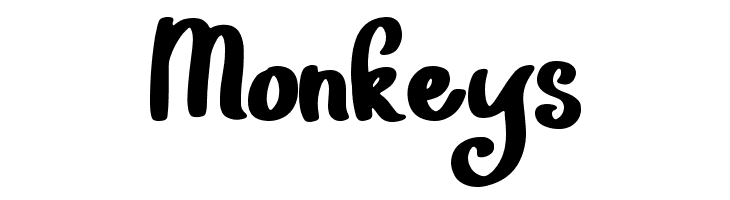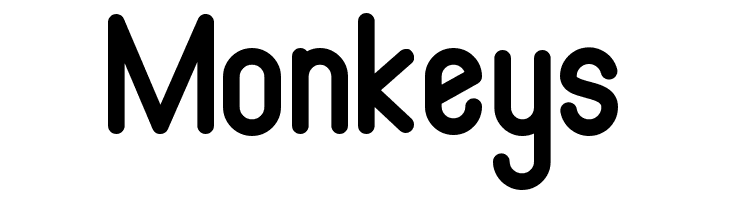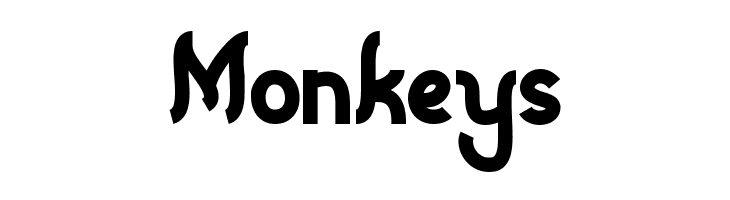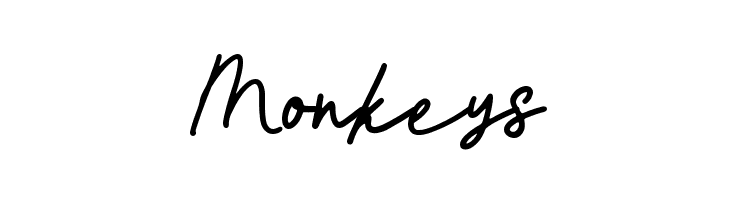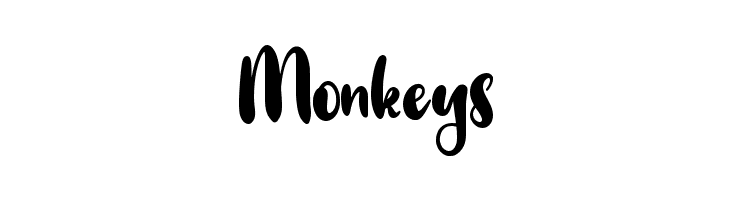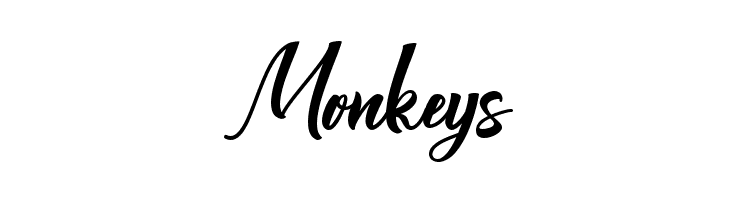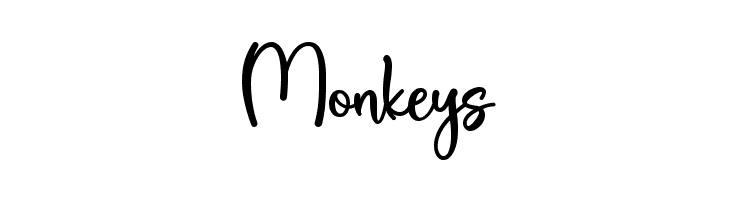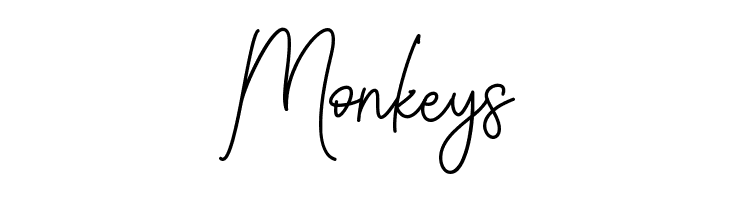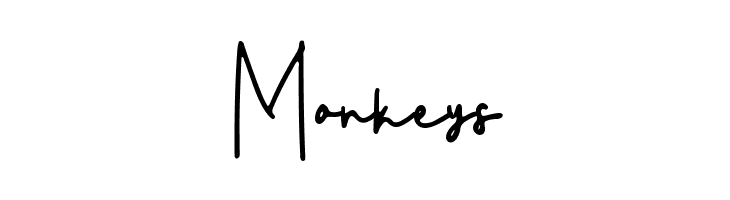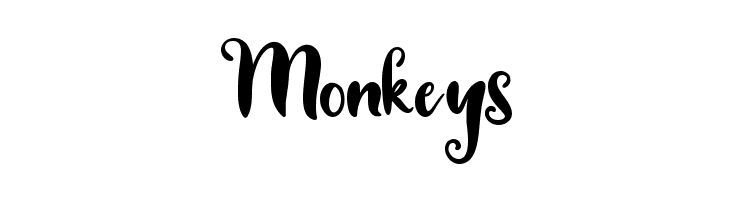
A playful, bold script font with a hand-drawn, whimsical style.
A bold, rounded font with a modern and playful style.
A bold, playful font with a hand-drawn, dynamic style.
A lively, fluid handwritten font with smooth curves and a personal touch.
A bold, flowing script font with a lively, tropical vibe.
An elegant, flowing script font with bold, sweeping uppercase and smooth cursive lowercase letters.
A playful, handwritten-style font with a whimsical and energetic appearance.
A lively, flowing handwritten font with elegant, elongated letterforms.
A playful and casual handwritten font with fluid strokes and a whimsical feel.
A playful, decorative script font with heart motifs and bold, flowing characters.